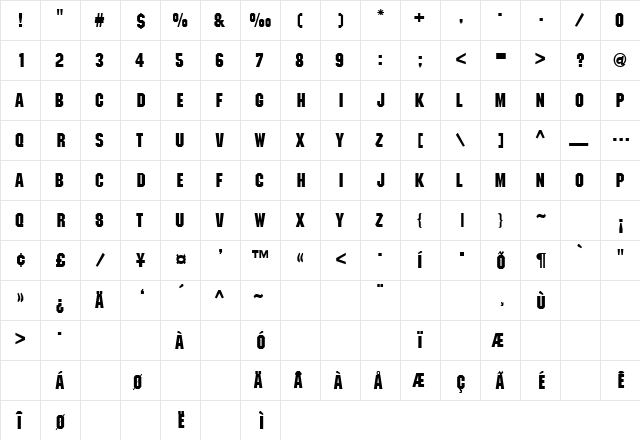
AutomatonCapsLightSSK Regular
Design Context for AutomatonCapsLightSSK Typeface
AutomatonCapsLightSSK offers clean, dependable letterforms without strong stylistic allegiance, making it a practical choice for designers who need flexibility. Its slender proportions lend an understated elegance to any composition.
Pro Tip: Pair AutomatonCapsLightSSK with a font of contrasting weight or personality to build a more expressive typographic hierarchy.